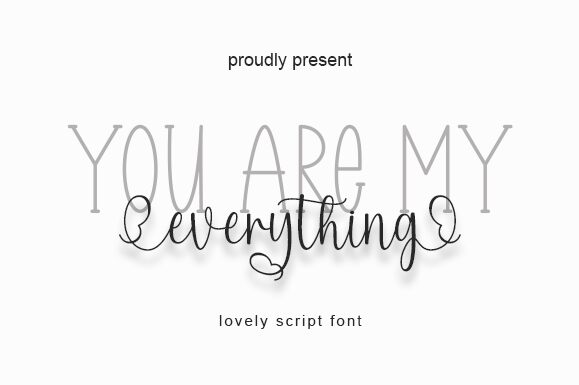
You Are My font is designed by Danar Nugroho of Jauzadesign, and it can easily become your new favorite typeface. With an artistic flair, this handwritten font embodies a geometric style with effects that make the words seem lively in a quirky way. Its condensed light letters inspire positivity which reaches audiences instantly without hassle.
When you have such a friendly font that’s free to use as You Are My is, the only thing you should do is make the best of it. Use it for posters and magazine pages or combine its characters for cheerful logotypes. Write quotes for websites and social media posts or create book covers and packaging designs with dashing projects on your mind!